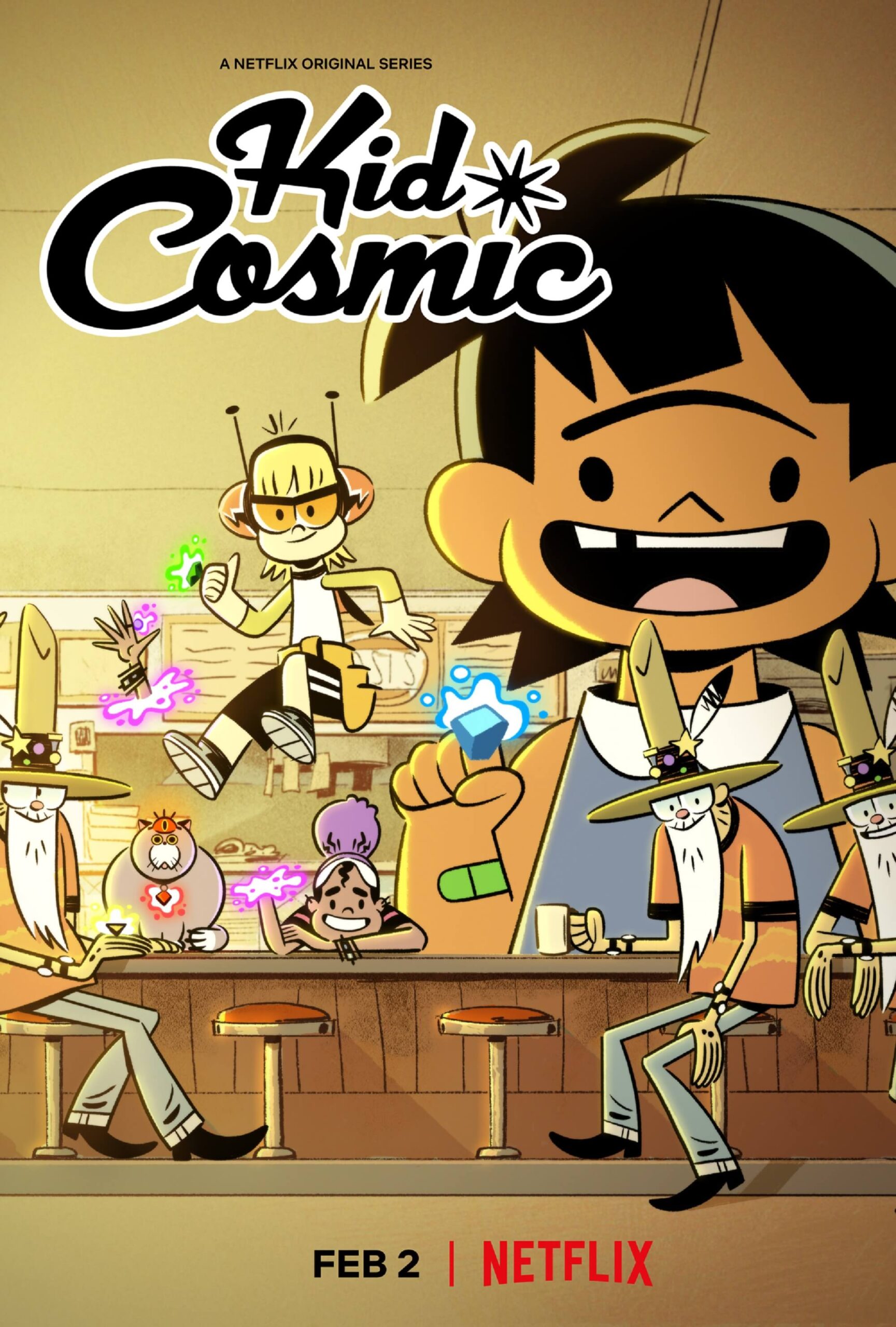
Kid Cosmic [TV Show] Font
AnimationKid Cosmic is an animated Netflix series that follows a young boy named Tweek who gains superpowers after discovering a group of cosmic stones. Along with his new friends, Tweek must learn to control his abilities and defend the universe from an evil force.
The Kid Cosmic title uses a slanted script typeface called Dynascript on the poster. Dynascript is designed by Michael Doret and published by Alphabet Soup. It also has a formal and upright alternative by the name of Dynatype.